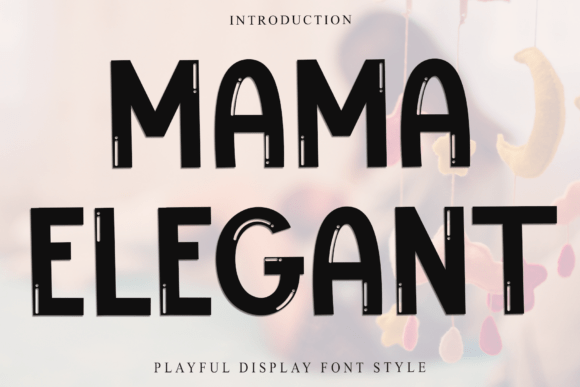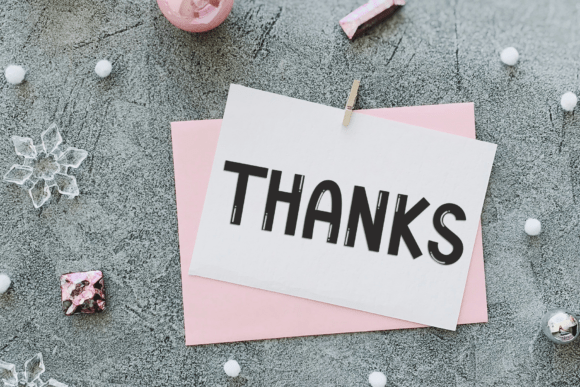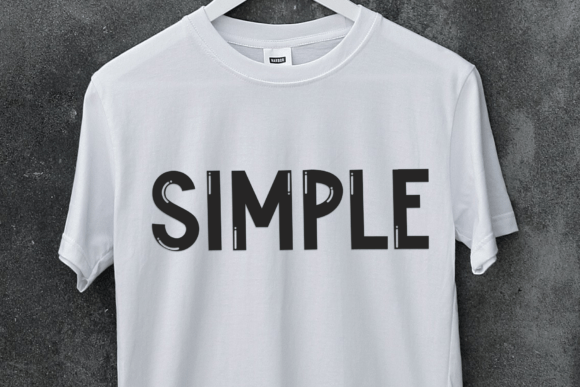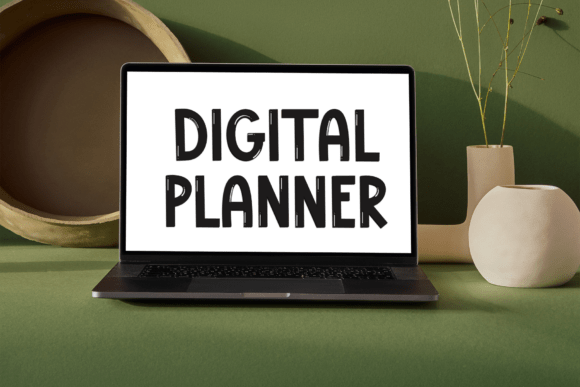
Mama Elegant Font: A Playful Display Font for Cricut & Crafts
About the Mama Elegant Font
The Mama Elegant Font is here to transform your projects with its distinctive character and style. Mama Elegant is a sweet and friendly handwritten font. Its natural and unique style makes it incredibly fitting to a large pool of designs. The only limit is your imagination!
Mama Elegant’s friendly, handwritten style works best for headlines, short text blocks on invitations or greeting cards, and branding elements requiring a touch of personal warmth. It’s ideal for projects aiming for a feminine or approachable feel, such as artisanal food packaging, boutique branding, or children’s book titles. Avoid using it for body text or lengthy paragraphs; its informal nature reduces readability over extended use.
The font’s inherent sweetness is balanced well by pairings like a clean sans-serif like Lato or Open Sans for body copy, creating a sophisticated contrast. For a more playful look, consider a geometric sans-serif like Montserrat or a script font with a less formal hand-lettered feel, to maintain the overall friendly mood. Using a serif like Playfair Display sparingly can add a touch of elegance, depending on the project’s needs.
Mama Elegant’s personality is best described as charming and approachable, conveying a sense of handmade quality and personal connection.
Mama Elegant Font Usage Examples
Mama Elegant Font Example